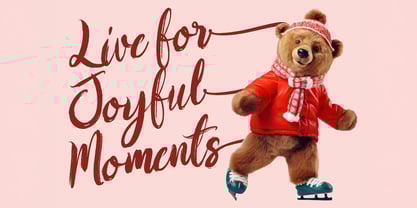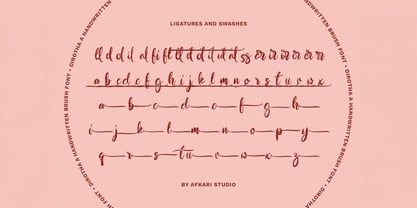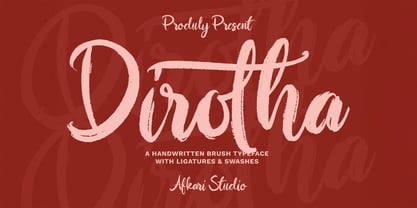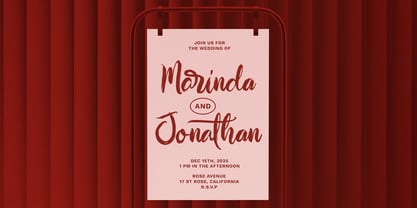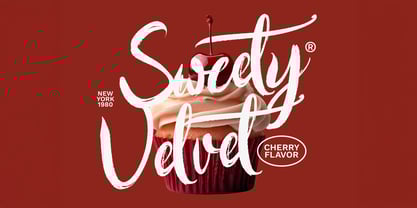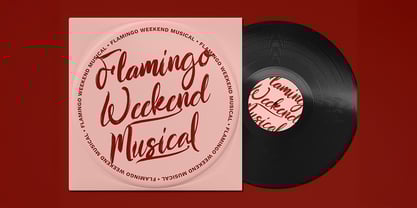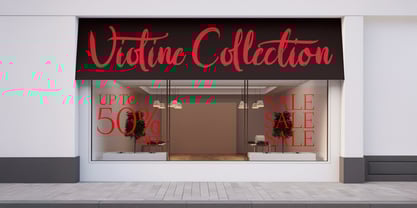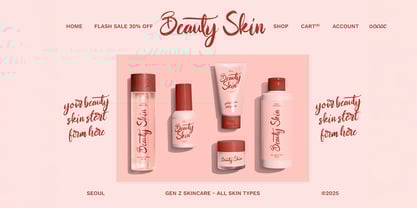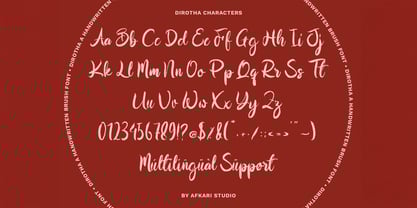
Dirotha
Dirotha – Handwritten Brush Font brings raw expression and personality into your design work. Inspired by natural brush strokes, Dirotha feels bold yet organic—just like handwriting done with a real brush pen. Every letter flows with attitude, movement, and just the right amount of edge.
This font is perfect for anything that needs a touch of handcrafted energy—like branding, logos, social media posts, apparel, packaging, or bold headlines. It works great in both large-scale designs and as a stylish signature touch.
Whether you're designing with passion or just want your message to pop with authenticity, Dirotha helps you say it loud, and beautifully.
Features;
- Uppercase, Lowercase, Number, and Punctuation
- Special Alternates and ligatures
- Mültîlíñgúãl Sùppört for; ä ö ü Ä Ö Ü ß ¿ ¡
Let your designs speak with bold character and handmade soul—meet Dirotha Handwritten Brush Font.